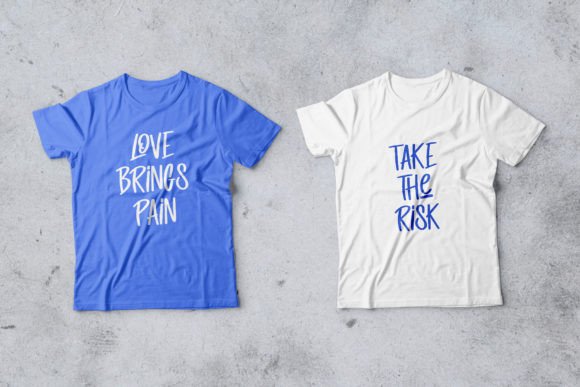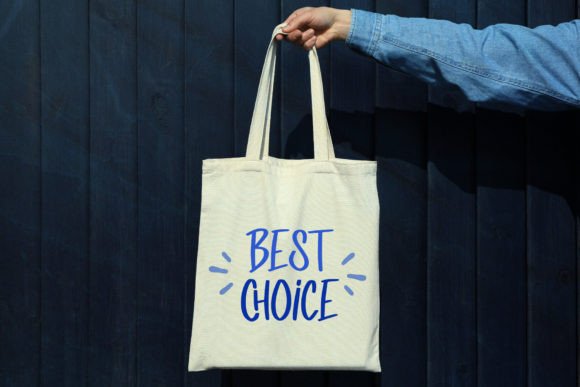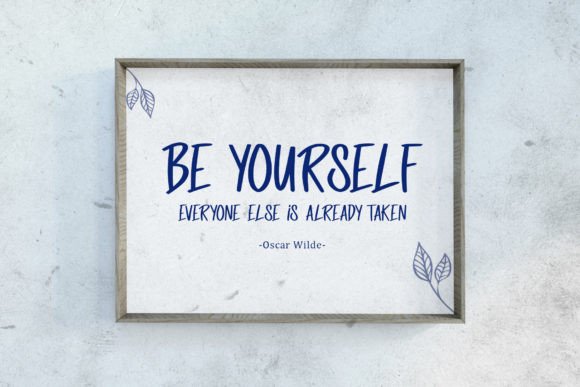
Introduction to Lagi Pula Font
Have you ever stared at a blank canvas, searching for the perfect font to bring your creative project to life? I know I have. The struggle is real, but what if I told you that I’ve found a game-changing solution? Introducing the Lagi Pula Font, a playful and stylish display font that’s sure to captivate your audience.
With its bold, rounded letters, the Lagi Pula Font is perfect for eye-catching headlines and fun designs. Its high quality and versatility make it an invaluable resource for designers, allowing you to create visually appealing and engaging content with ease. Whether you’re working on a design project with a transparent background or need a font that stands out from the crowd, the Lagi Pula Font is the perfect choice.
- Features a clean and modern design, making it perfect for modern and minimalist creative projects.
Honest Review: Lagi Pula Font
Lagi Pula Font has caught my attention with its unique and creative design. As a designer, I’m always on the lookout for high-quality design resources to elevate my projects. This font fits the bill, offering a fresh and modern aesthetic that’s perfect for creative projects.
- ✨ Unique and creative design: Lagi Pula Font offers a distinctive look that’s hard to find in other fonts.
- ✨ High-quality glyphs: The font’s glyphs are crisp and well-designed, making it perfect for both digital and print projects.
However, I do have a few concerns:
- ⚠️ Limited font weights: Lagi Pula Font only comes in a few font weights, which may limit its versatility in certain projects.
- ⚠️ Not suitable for body text: Due to its unique design, Lagi Pula Font may not be the best choice for body text, where readability is crucial.
Lagi Pula Font is a high-quality design resource perfect for creative projects. This versatile font features a transparent background, making it ideal for various design applications.
Getting the Most Out of Lagi Pula Font
To get the most out of Lagi Pula Font, experiment with different font sizes, styles, and colors to create visually appealing designs. Use it in combination with other design elements to create a cohesive look.
Lagi Pula Font is ideal for various design projects, including logos, brochures, posters, and social media graphics. Its transparent background makes it perfect for overlaying text or images.